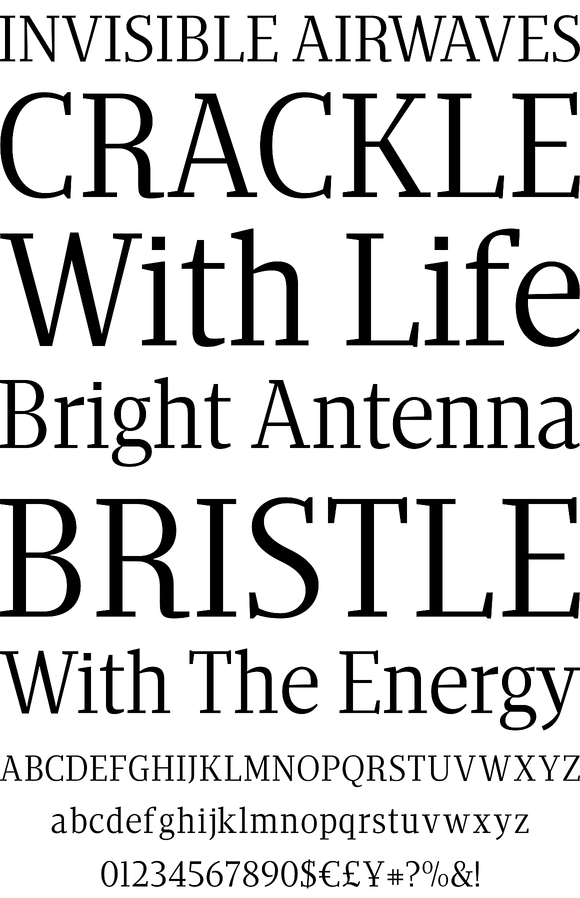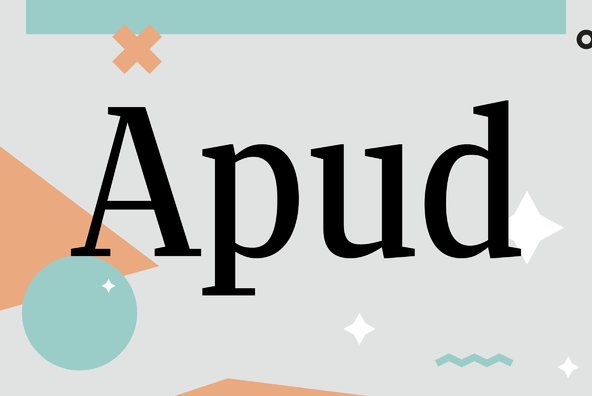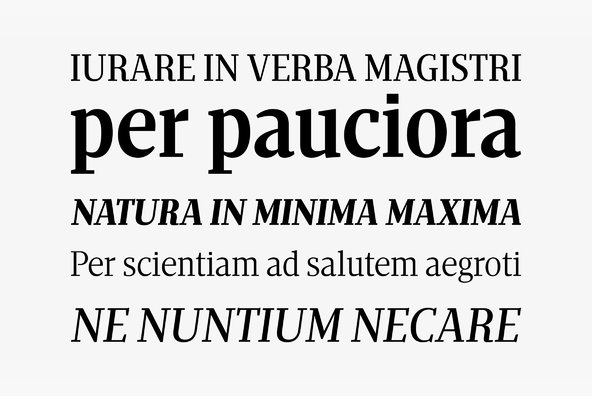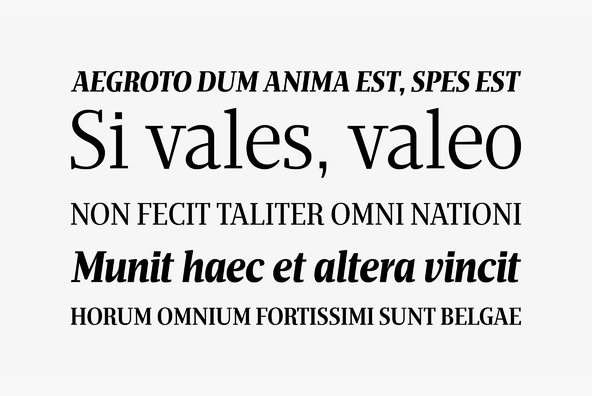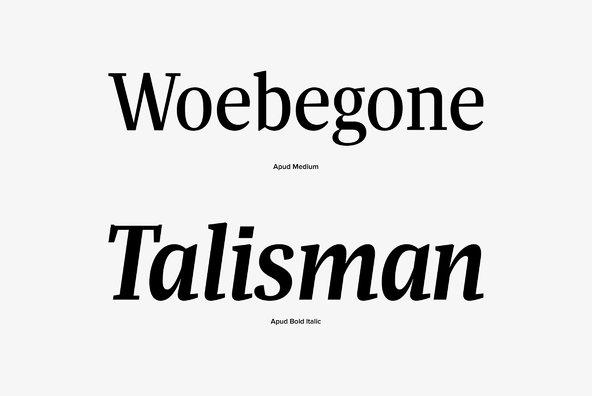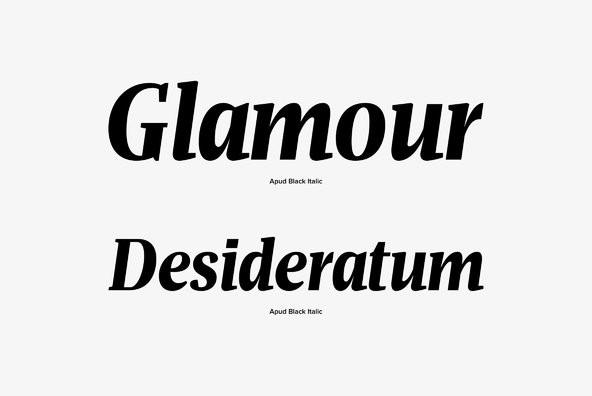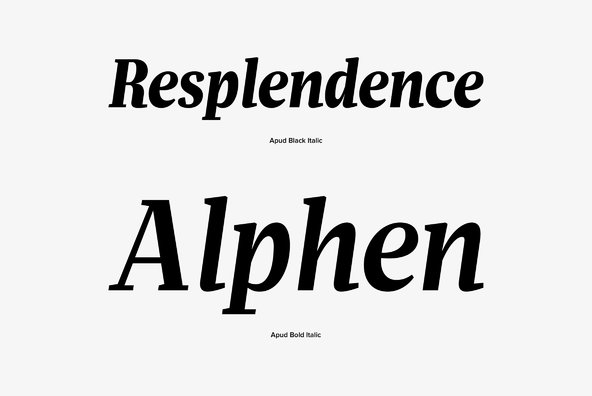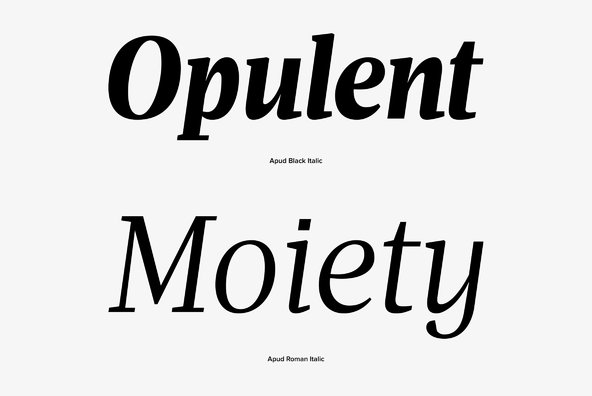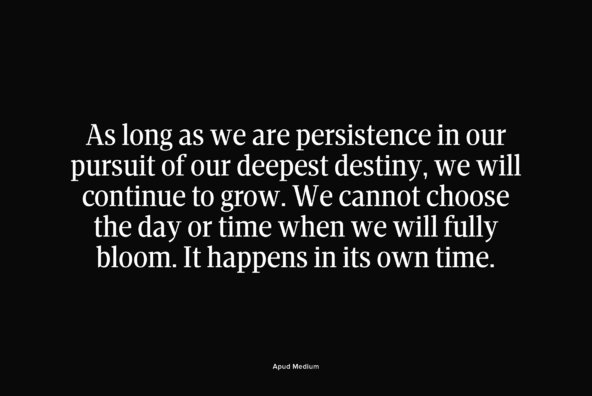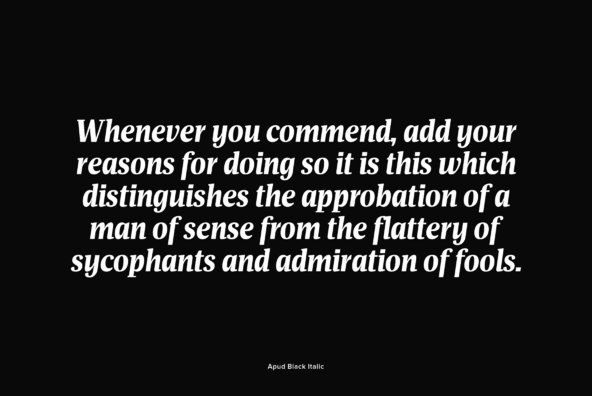
Apud, a typeface with narrow proportions, interchangeable weights that avoid text warping, sharp serifs and square terminals. The clean, contemporary look and rigid structure makes Apud suited for any kind of publication design.